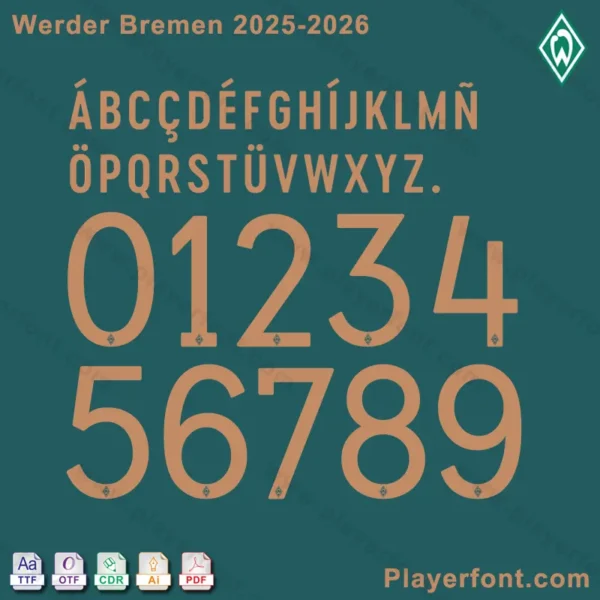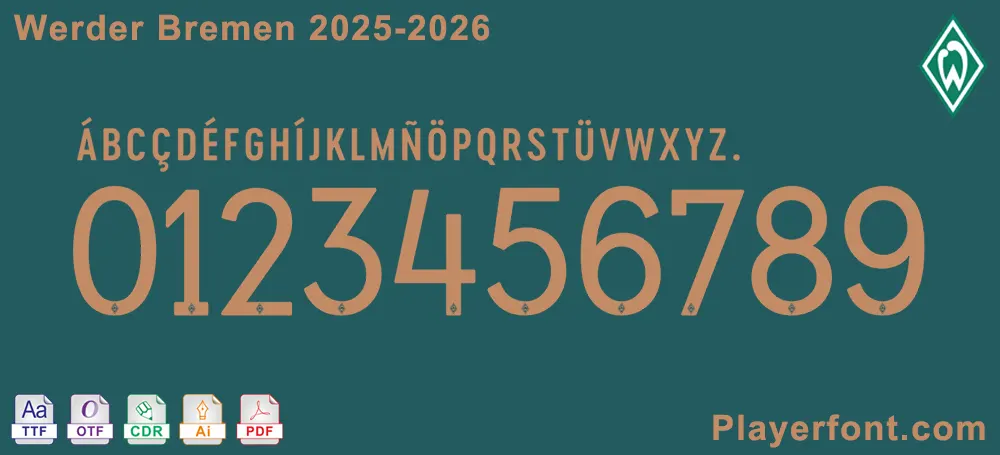
Werder Bremen 2025-2026 Font Download
Werder Bremen 2025-2026 Player Numbers 0-9 Typography Samples
High-resolution preview of all digits (0-9) in official club colors